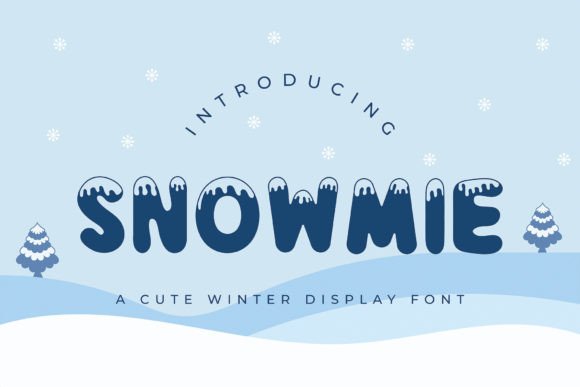
Embark on a whimsical winter adventure with 'Snowmie', a captivating display font exuding charm and playfulness. Its modern aesthetics make it the perfect choice for branding, crafting, and adorning any holiday project. Unleash your creativity and let Snowmie weave its magic into greeting cards, logo designs, clothing, posters, magazines, packaging, shopping bags, t-shirts, mugs, book covers, and beyond.
Imagine your designs adorned with Snowmie's elegant curves, each letter dancing like snowflakes in the winter breeze. Its versatility knows no bounds, lending itself effortlessly to a myriad of creative endeavors. From enchanting greeting cards that convey heartfelt messages to captivating logos that leave a lasting impression, Snowmie transforms ordinary designs into extraordinary works of art.
Step into a realm of endless possibilities, where Snowmie's graceful strokes elevate your projects to new heights. Whether you're crafting personalized clothing items, creating eye-catching posters, designing sleek magazines, or adding a touch of charm to packaging and shopping bags, Snowmie becomes your trusted companion, turning your creative visions into tangible masterpieces.
With Snowmie as your font of choice, your designs radiate a sense of warmth and joy, inviting customers to embrace the magic of winter. Picture Snowmie's enchanting characters adorning t-shirts, bringing smiles to faces wherever they go. Its delicate touch graces mugs, adding a touch of elegance to everyday moments. Book covers adorned with Snowmie's captivating letters invite readers into captivating worlds, promising an immersive literary experience.
Dive into the world of Snowmie, where imagination reigns supreme, and creativity knows no limits. Let this whimsical font guide you on a journey of artistic exploration, transforming your designs into enchanting displays of artistry that capture hearts and leave a lasting impression. Embrace the magic of Snowmie today and embark on a creative adventure like no other!